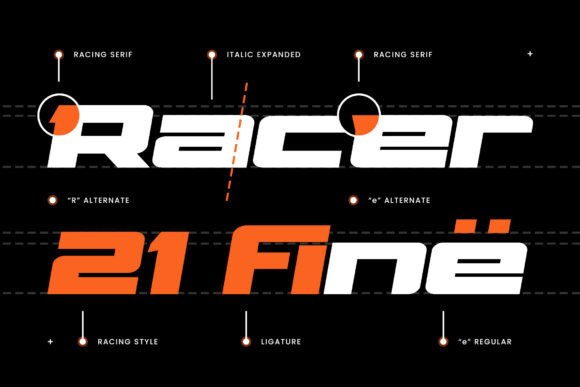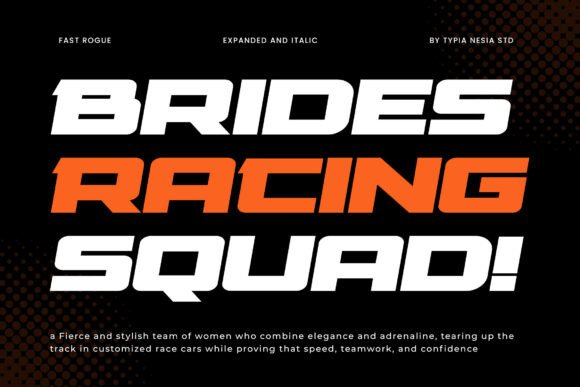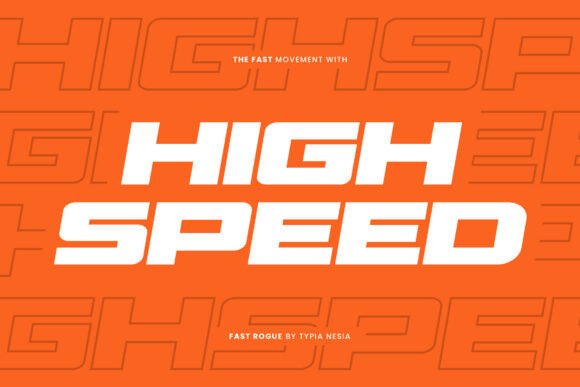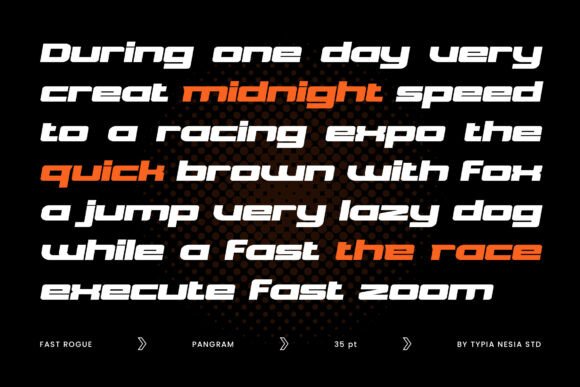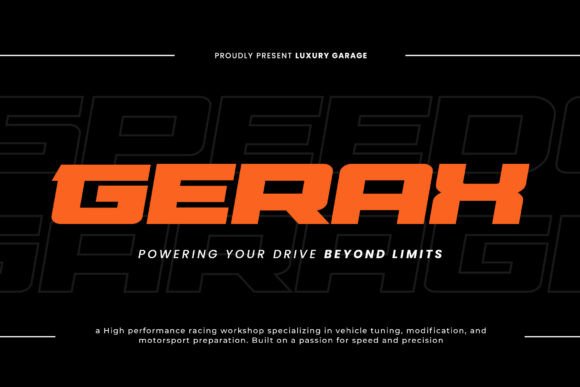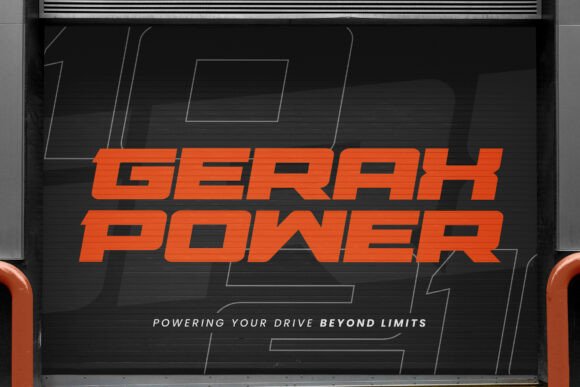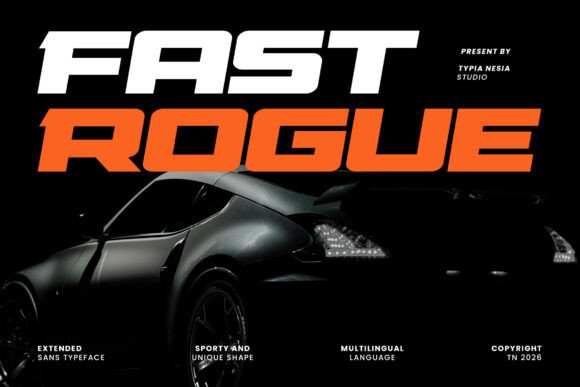
Unleash the Power of Speed: Introducing Fast Rogue – The Ultimate Modern Bold Expanded Italic Racing Sport Font
Are you looking for a font that embodies the essence of speed, power, and performance? Look no further than Fast Rogue, the modern bold expanded italic racing sport font designed to take your designs to the next level. Engineered to capture the adrenaline of automotive racing, competitive sports, and high-energy gaming, Fast Rogue is the perfect choice for designers and crafters who want to create visually stunning and energetic designs.
Design and Features
Fast Rogue boasts a strong slanted structure and wide expanded proportions, making it a standout font that exudes confidence and dynamism. Its futuristic and tech-inspired letterforms are carefully crafted to convey a sense of speed and agility, perfect for projects that require a bold and commanding visual identity. The font comes with a range of features, including:
• Multilingual support, allowing you to create designs that cater to a global audience
• Numerals, punctuation, and alternate characters, ensuring maximum versatility across digital and print platforms
• A wide range of applications, from logo design and logotypes to web headers, posters, esports graphics, and more
Perfect for Modern Sports and Tech Projects
Fast Rogue is specifically designed for projects that require a modern and energetic visual identity. Its applications include:
• Logo design and logotypes for sports brands, tech startups, and gaming companies
• Web headers and posters for automotive racing, competitive sports, and esports events
• Graphics and visual effects for game titles, tech startups, and futuristic design projects
• Branding and marketing materials for modern sports brands and tech companies
Why Choose Fast Rogue?
So why choose Fast Rogue over other fonts? Here are just a few reasons:
• Unique and distinctive design: Fast Rogue’s bold and expanded italic design sets it apart from other fonts, making it perfect for projects that require a standout visual identity
• Highly versatile: With multilingual support, numerals, punctuation, and alternate characters, Fast Rogue can be used across a wide range of applications and platforms
• Easy to use: Fast Rogue is designed to be easy to read and use, making it perfect for designers and crafters of all levels
Get Ready to Take Your Designs to the Next Level
In conclusion, Fast Rogue is a game-changing font that is sure to revolutionize the way you approach design. Its unique and distinctive design, high versatility, and ease of use make it the perfect choice for designers and crafters who want to create visually stunning and energetic designs. Whether you’re working on a logo design, web header, poster, or any other project, Fast Rogue is the perfect choice. So why wait? Download Fast Rogue now and start creating designs that embody the essence of speed, power, and performance.